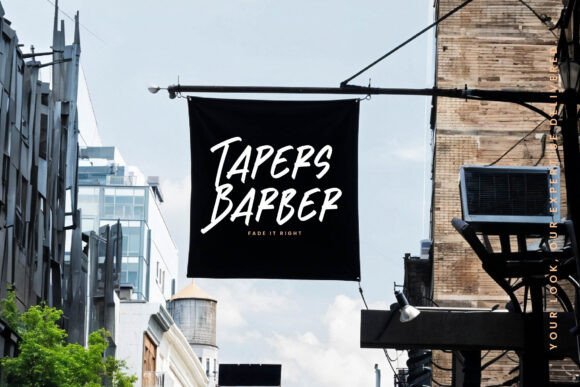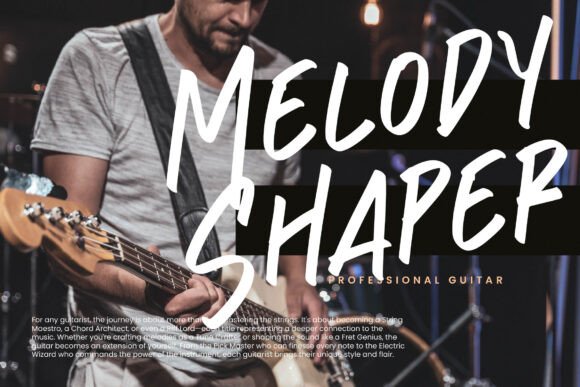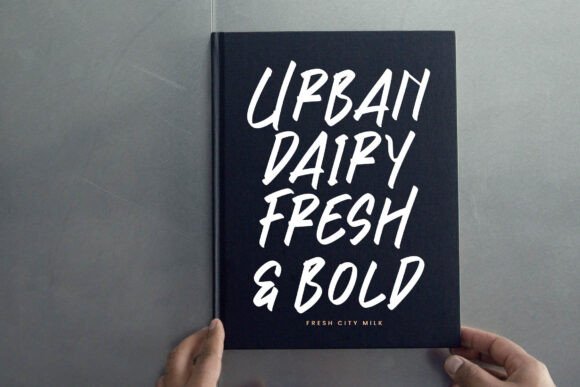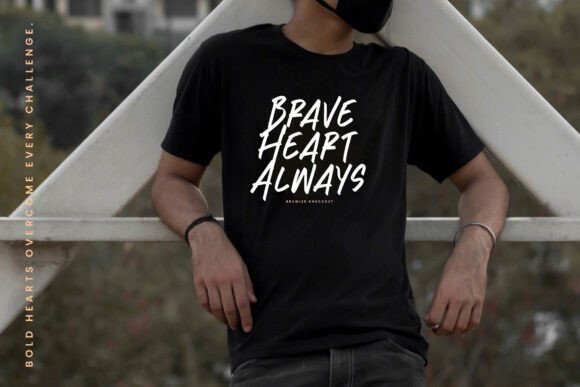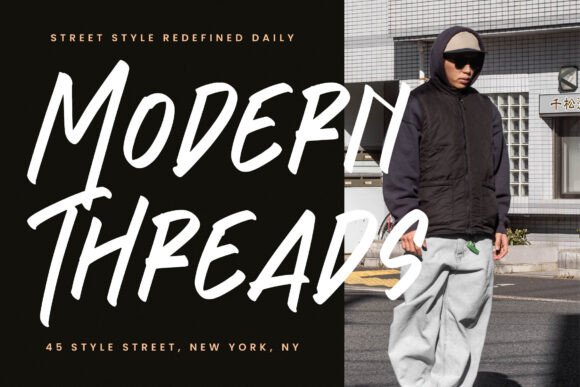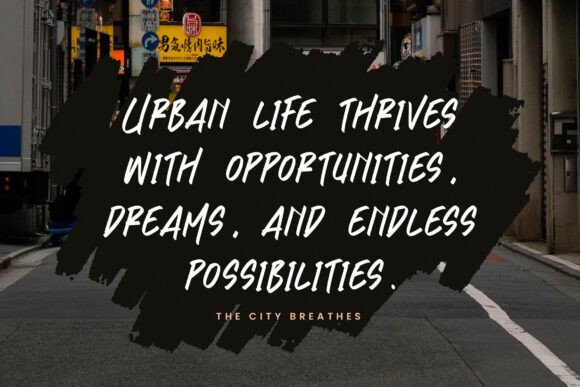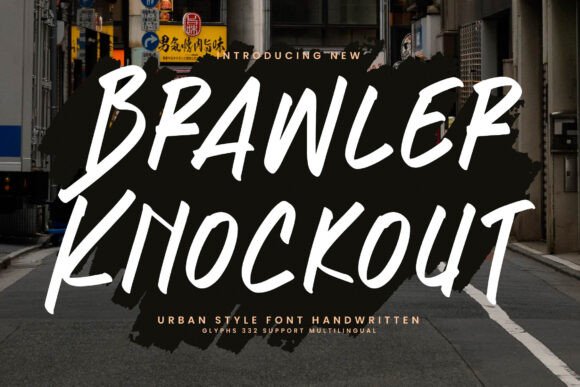
Brawler Knockout Font: Unleash Your Creativity with this Urban-Style Handwritten Font
Are you tired of using the same old fonts for your designs? Do you want to add a bold, raw, and edgy touch to your projects? Look no further than Brawler Knockout, the ultimate urban-style handwritten font. With its aggressive brush strokes and dynamic energy, this typeface is perfect for designers and crafters who want to create streetwear branding, sports posters, graffiti-inspired designs, and edgy social media graphics that stand out from the crowd.
What is Brawler Knockout Font?
Brawler Knockout is a bold, raw, and full-of-attitude handwritten font that is designed to deliver knockout visuals with every word. This font features 332 glyphs, ligatures, and multilingual support, making it a versatile and powerful tool for designers. With its urban-style aesthetic, Brawler Knockout is perfect for creating designs that require a bold and edgy look.
Key Features of Brawler Knockout Font
- Aggressive Brush Strokes: Brawler Knockout features aggressive brush strokes that give it a dynamic and energetic feel.
- 332 Glyphs: With 332 glyphs, Brawler Knockout offers a wide range of characters to work with, making it perfect for creating complex designs.
- Ligatures: Brawler Knockout features ligatures, which allow designers to create smooth and flowing text.
- Multilingual Support: Brawler Knockout supports multiple languages, making it a great choice for designers who work with international clients.
Use Cases for Brawler Knockout Font
Brawler Knockout is a versatile font that can be used in a variety of design projects, including:
- Streetwear Branding: Brawler Knockout is perfect for creating bold and edgy streetwear branding that stands out from the crowd.
- Sports Posters: With its aggressive brush strokes and dynamic energy, Brawler Knockout is a great choice for creating sports posters that grab attention.
- Graffiti-Inspired Designs: Brawler Knockout’s urban-style aesthetic makes it perfect for creating graffiti-inspired designs that are bold and edgy.
- Edgy Social Media Graphics: Brawler Knockout is a great choice for creating edgy social media graphics that stand out from the crowd.
Benefits of Using Brawler Knockout Font
Using Brawler Knockout font offers a range of benefits, including:
- Unique and Bold Look: Brawler Knockout’s aggressive brush strokes and dynamic energy give it a unique and bold look that sets it apart from other fonts.
- Versatility: With 332 glyphs, ligatures, and multilingual support, Brawler Knockout is a versatile font that can be used in a variety of design projects.
- Easy to Read: Despite its bold and edgy look, Brawler Knockout is easy to read, making it perfect for designs that require a clear and concise message.
Tips for Using Brawler Knockout Font
Here are some tips for using Brawler Knockout font:
- Use it Sparingly: Brawler Knockout is a bold font, so use it sparingly to avoid overwhelming your design.
- Pair it with Other Fonts: Brawler Knockout can be paired with other fonts to create a unique and interesting look.
- Experiment with Colors: Brawler Knockout looks great in bold and bright colors, so experiment with different colors to find the one that works best for your design.
Brawler Knockout is a powerful and versatile font that is perfect for designers and crafters who want to add a bold, raw, and edgy touch to their designs. With its aggressive brush strokes, dynamic energy, and 332 glyphs, ligatures, and multilingual support, Brawler Knockout delivers knockout visuals with every word. Whether you’re creating streetwear branding, sports posters, graffiti-inspired designs, or edgy social media graphics, Brawler Knockout is the ultimate urban-style handwritten font.